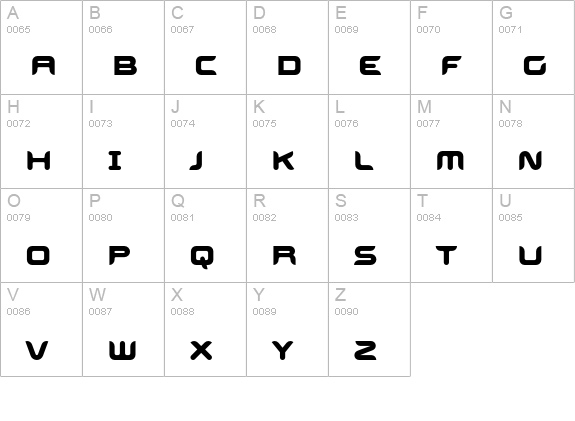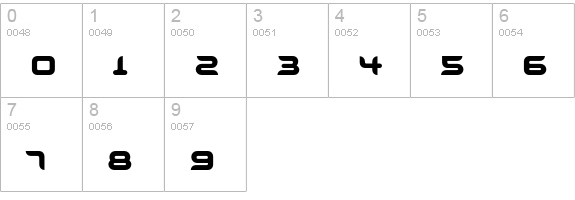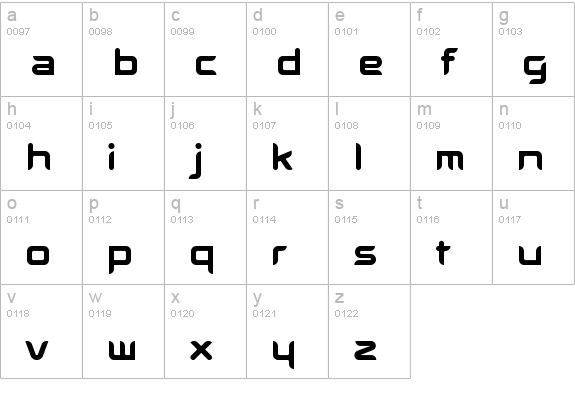
Aura-Regular is the standard, neutral variant in the Aura typeface family \xE2\x80\x94 well suited to general body text, paragraphs, and standard typographic work.
Aura-Regular is a modern and elegant font that exudes sophistication and style. With its clean lines and sleek curves, this typeface is perfect for a wide range of design projects, from branding to editorial layouts. Its versatility makes it a popular choice among designers looking for a font that can convey both professionalism and creativity. What sets Aura-Regular apart is not just its aesthetic appeal, but also the fact that it is available for free. That's right, you can download this stunning font at FontsMarket.com without having to spend a penny. Whether you're working on a personal project or a client commission, Aura-Regular is sure to elevate your designs and leave a lasting impression. So why wait? Head over to FontsMarket.com now and add Aura-Regular to your font collection today.